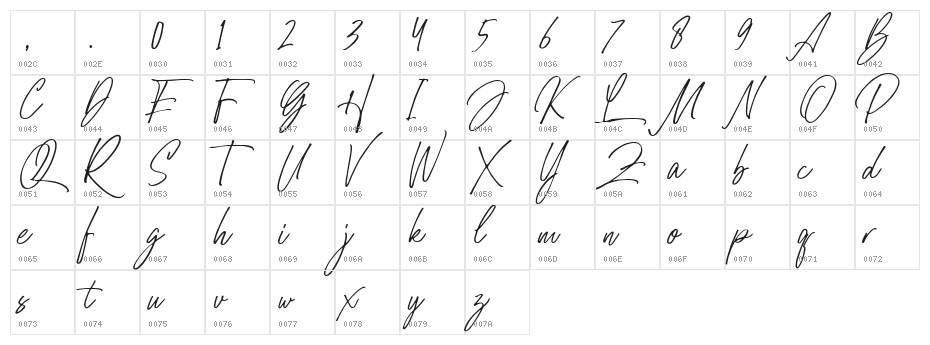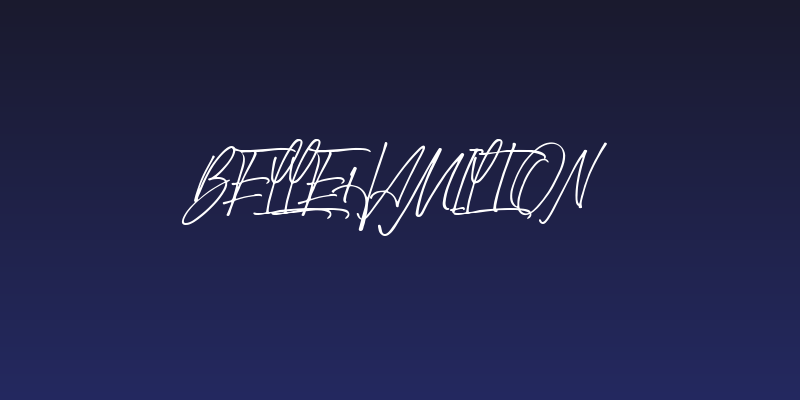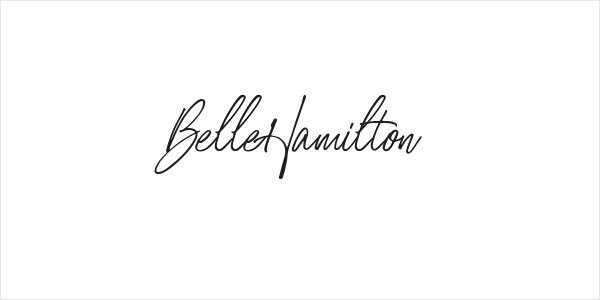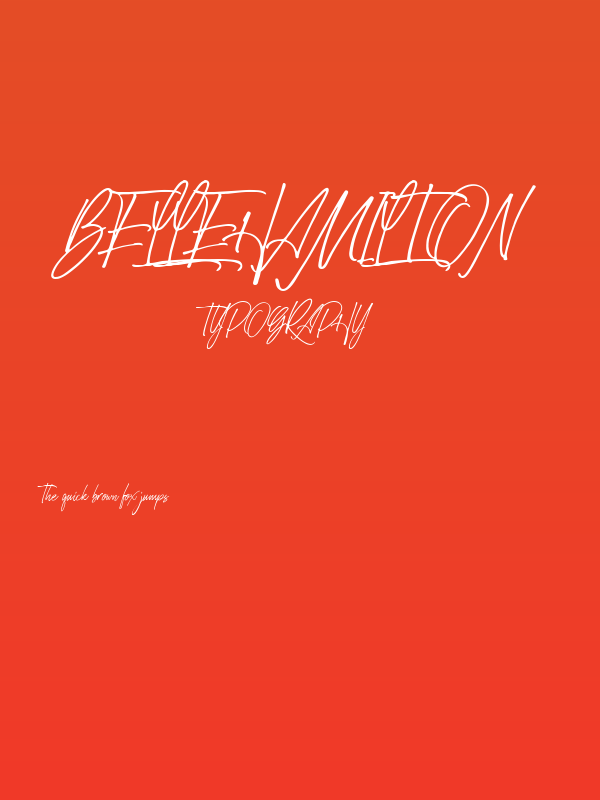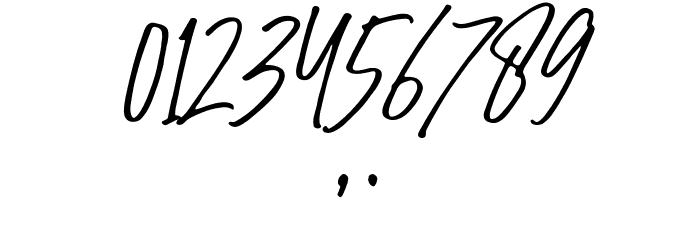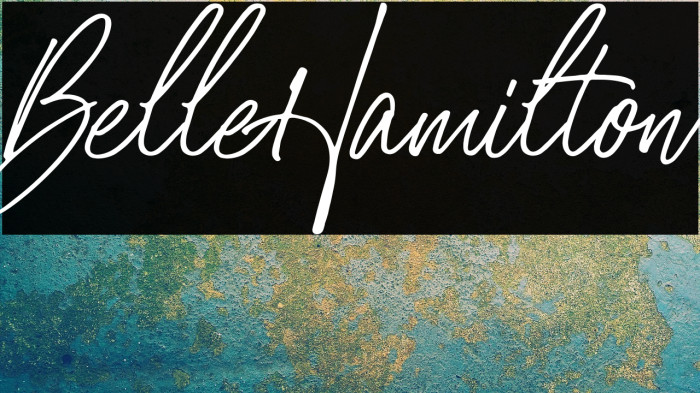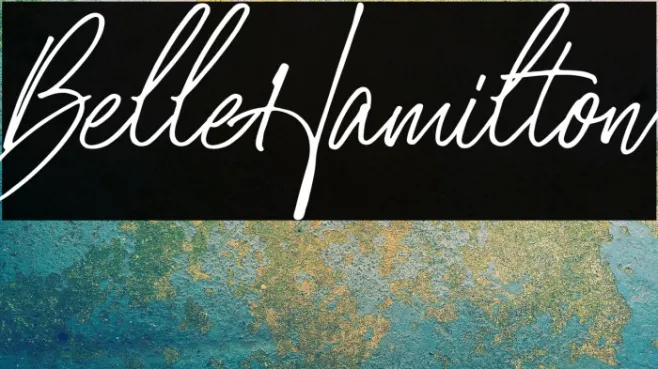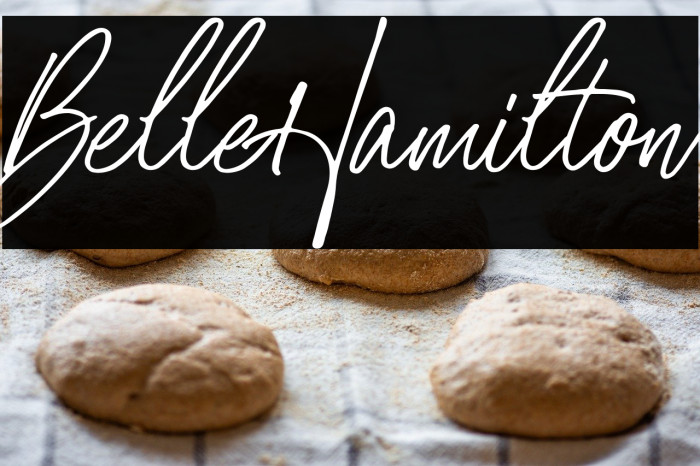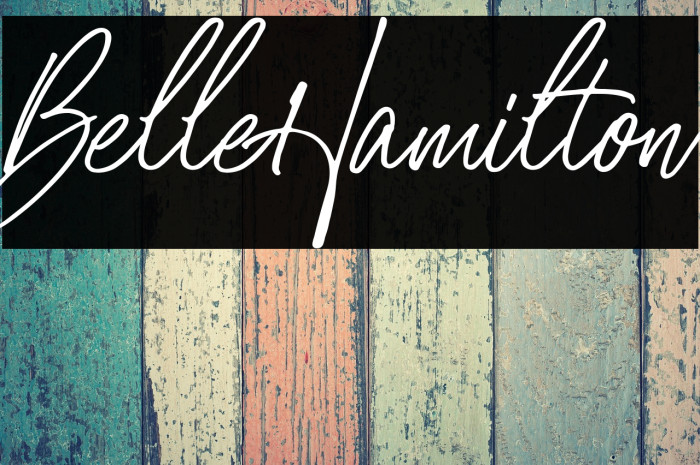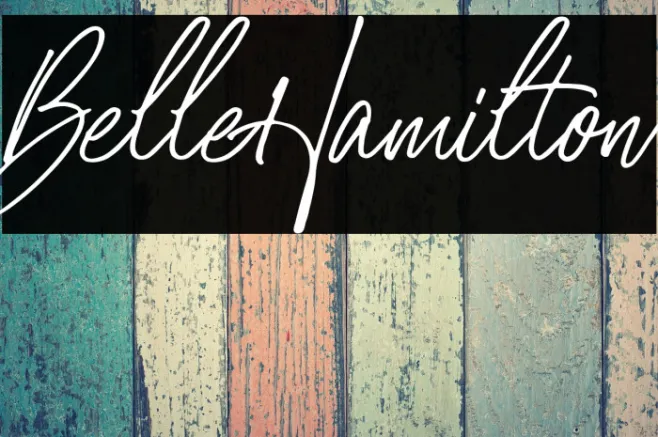
BelleHamilton Font
BelleHamilton Description
This font exudes a dynamic and expressive style, characterized by its fluid, cursive script that mimics natural handwriting. The letters are elegantly connected, with a slight slant that adds to its graceful appearance. The strokes vary in thickness, providing a lively and energetic feel. The uppercase letters are bold and prominent, while the lowercase letters maintain a consistent flow. The numerals are distinct and align well with the overall script style. This font is ideal for projects that require a personal touch, such as invitations, greeting cards, or artistic branding.
| Proposed Projects | Ideal for invitations, greeting cards, artistic branding, and personal projects. |